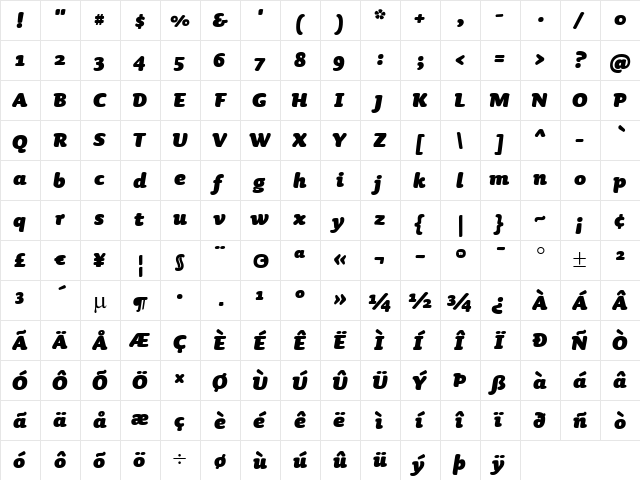
Sauna-BlackItalic Regular
Design Context for Sauna-BlackItalic Typeface
Sauna-BlackItalic is a composed and adaptable typeface that performs quietly and consistently across a wide range of design contexts. The slanted form adds forward momentum and visual energy.
Pro Tip: Use Sauna-BlackItalic for emphasis, pull quotes, and subheadings where its slanted energy can add rhythm to the layout.